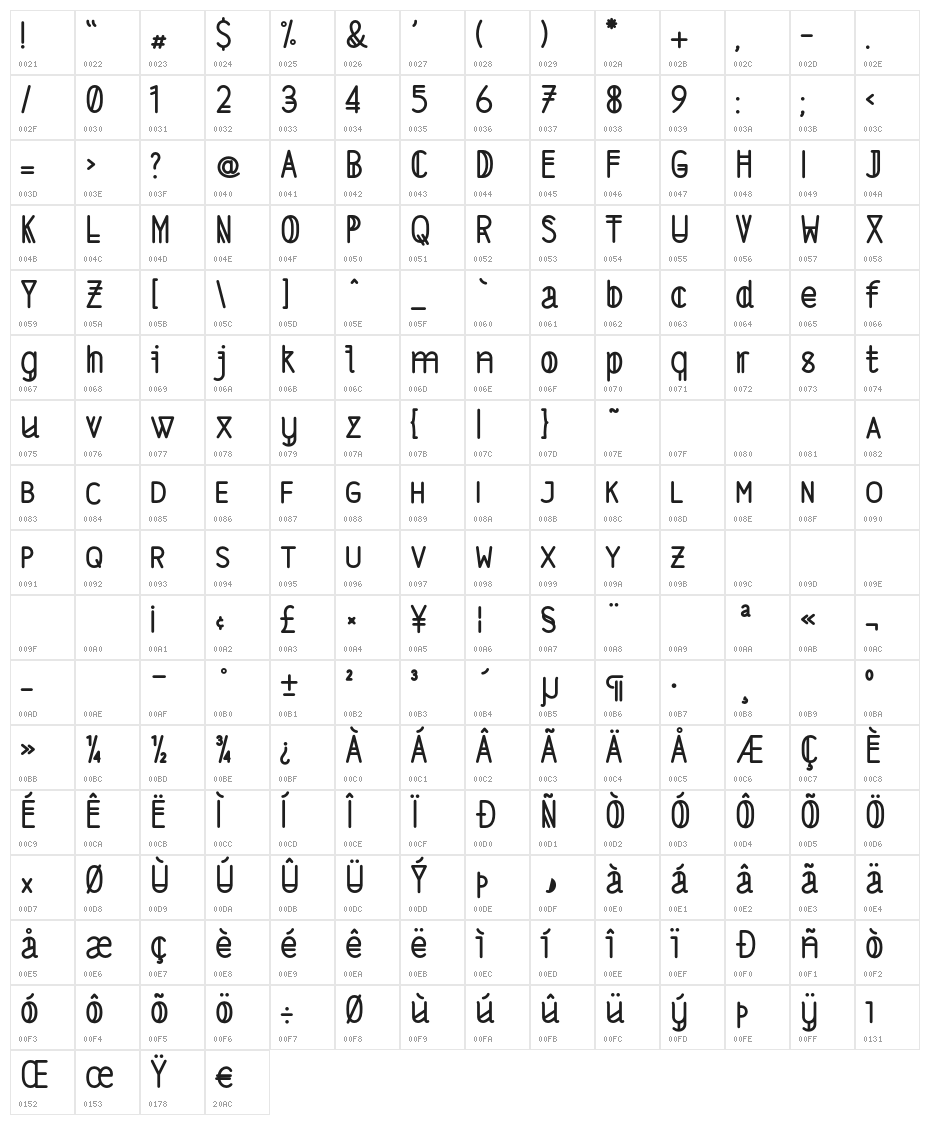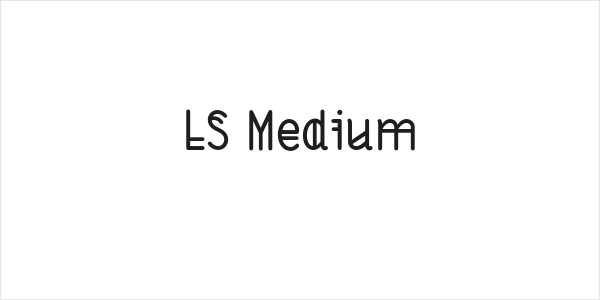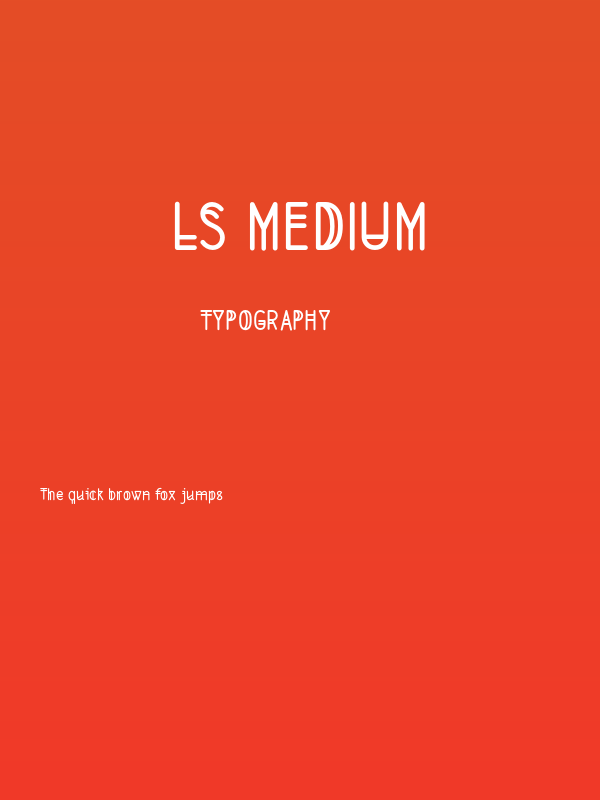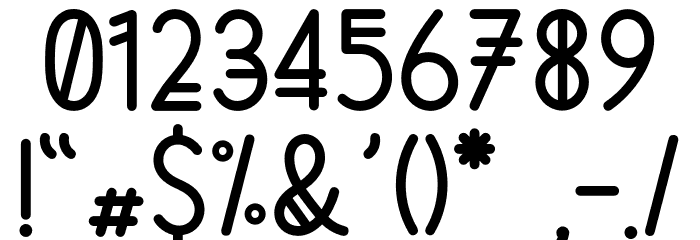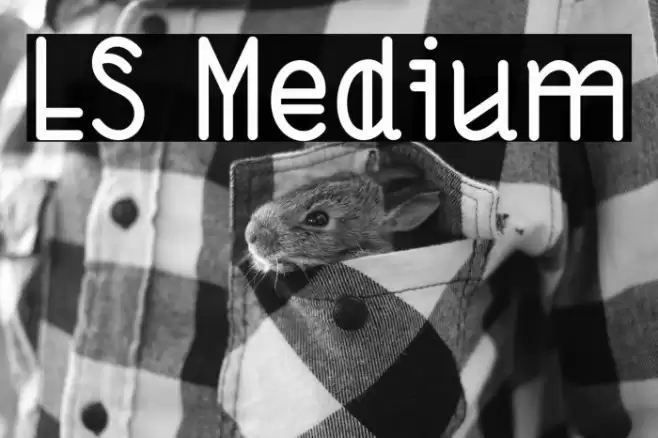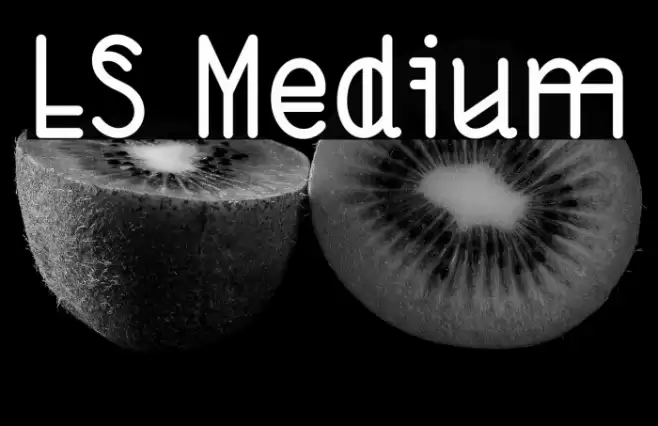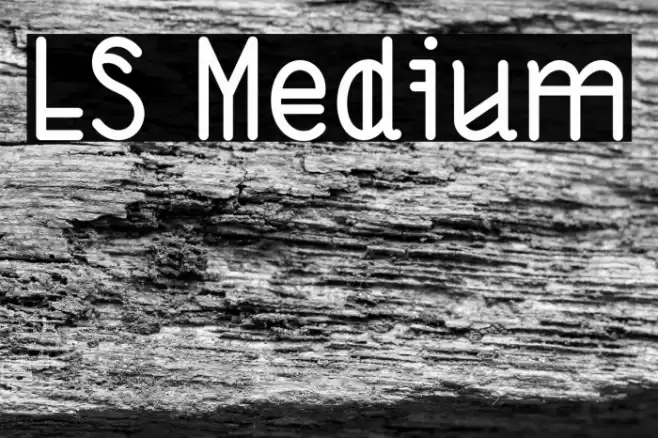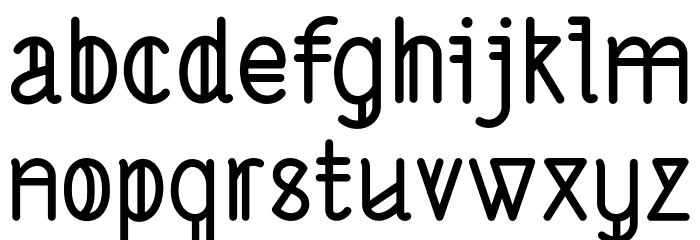
LS Medium Font
LS Medium Description
This font features a unique blend of geometric and modern design elements, characterized by its rounded edges and consistent stroke width. The uppercase letters exhibit a playful yet structured appearance, with distinct shapes that make each character stand out. The lowercase letters maintain a similar style, offering a cohesive look across the typeface. Numbers and special characters are designed with the same attention to detail, ensuring readability and aesthetic appeal. This font is versatile, suitable for various design projects that require a modern and approachable feel.